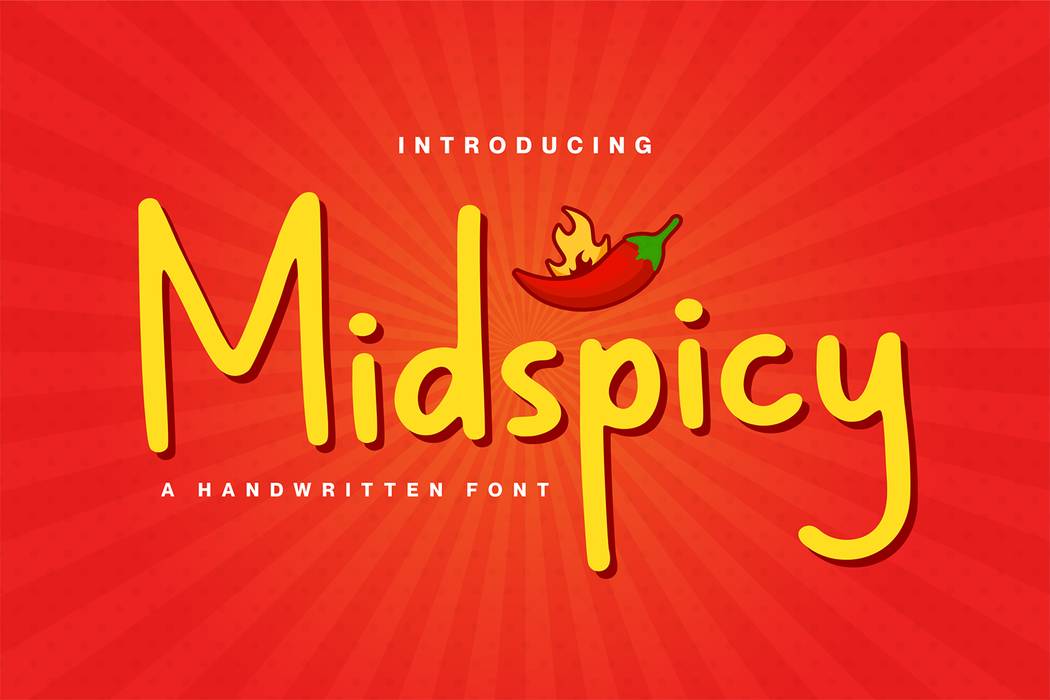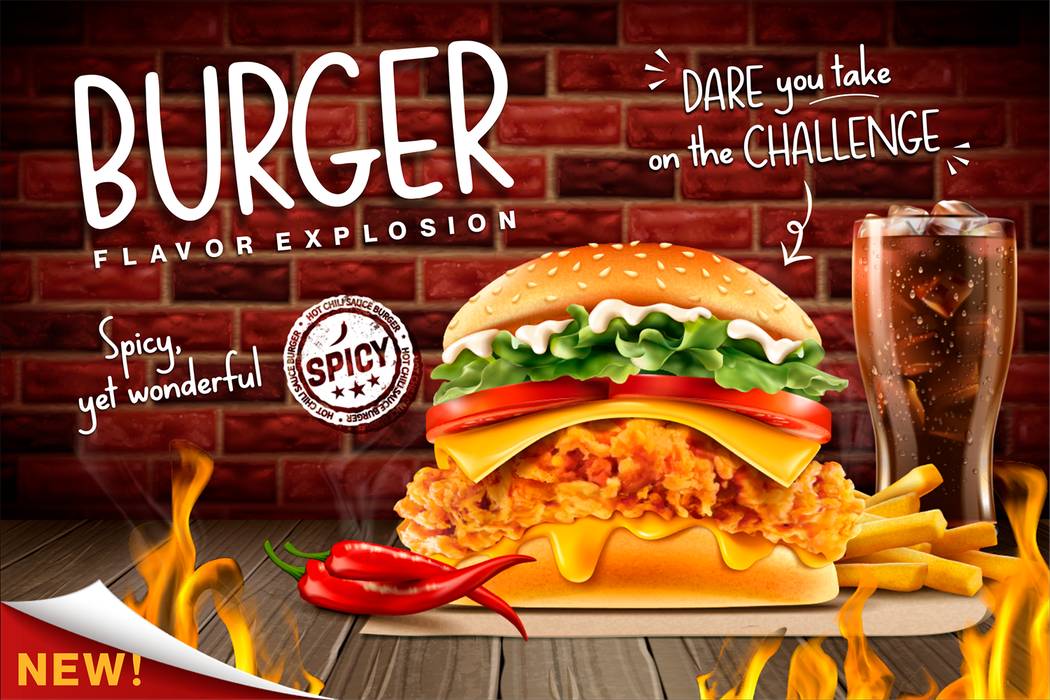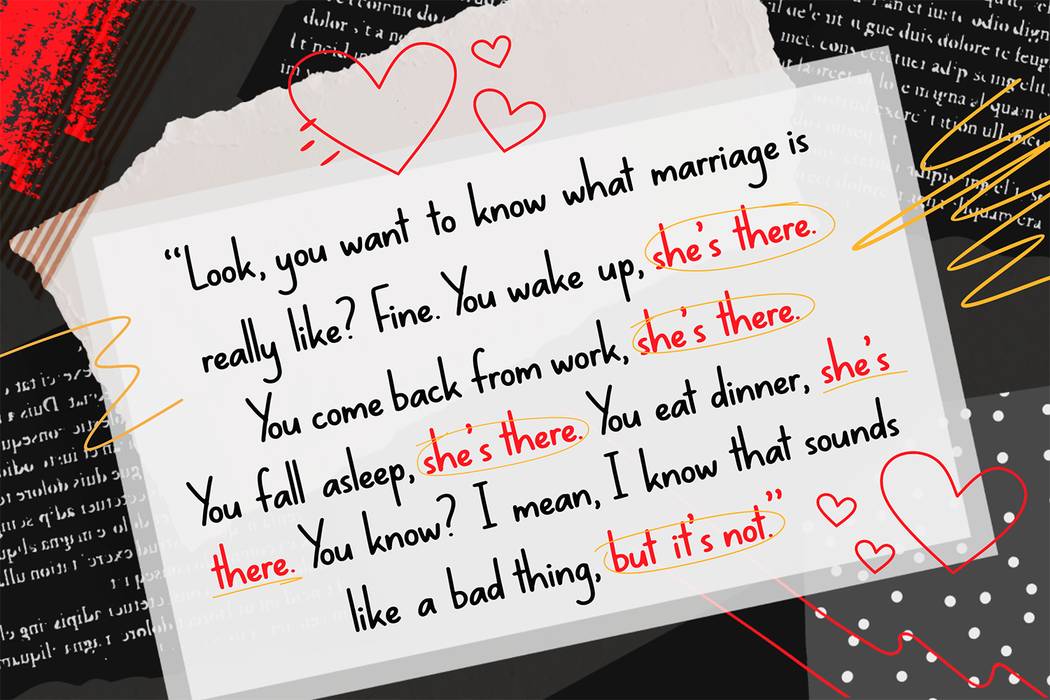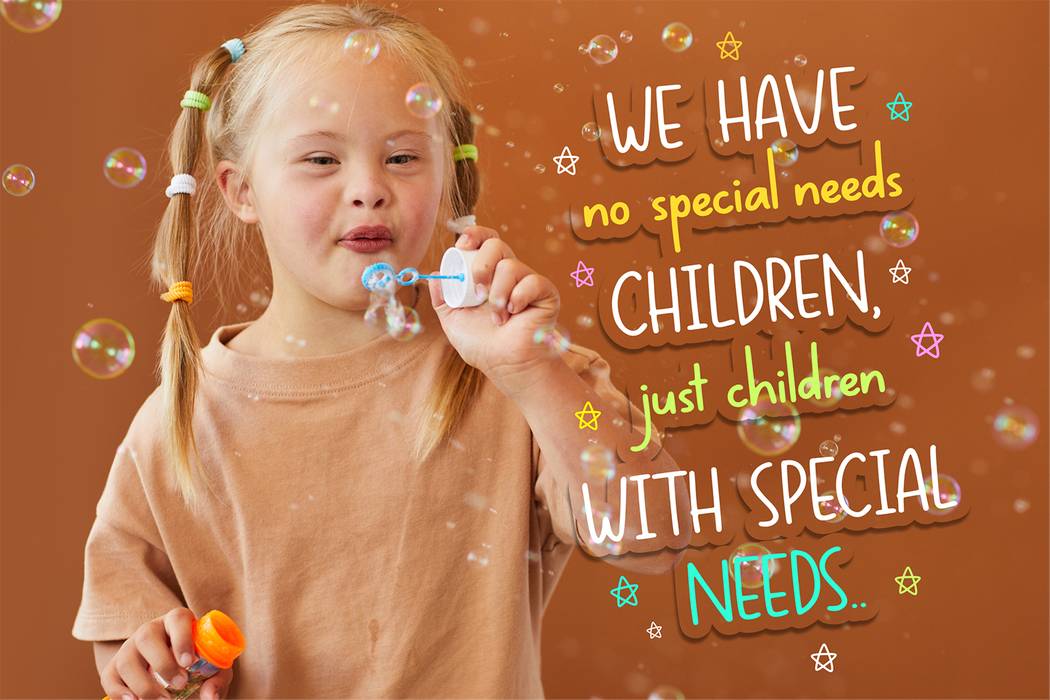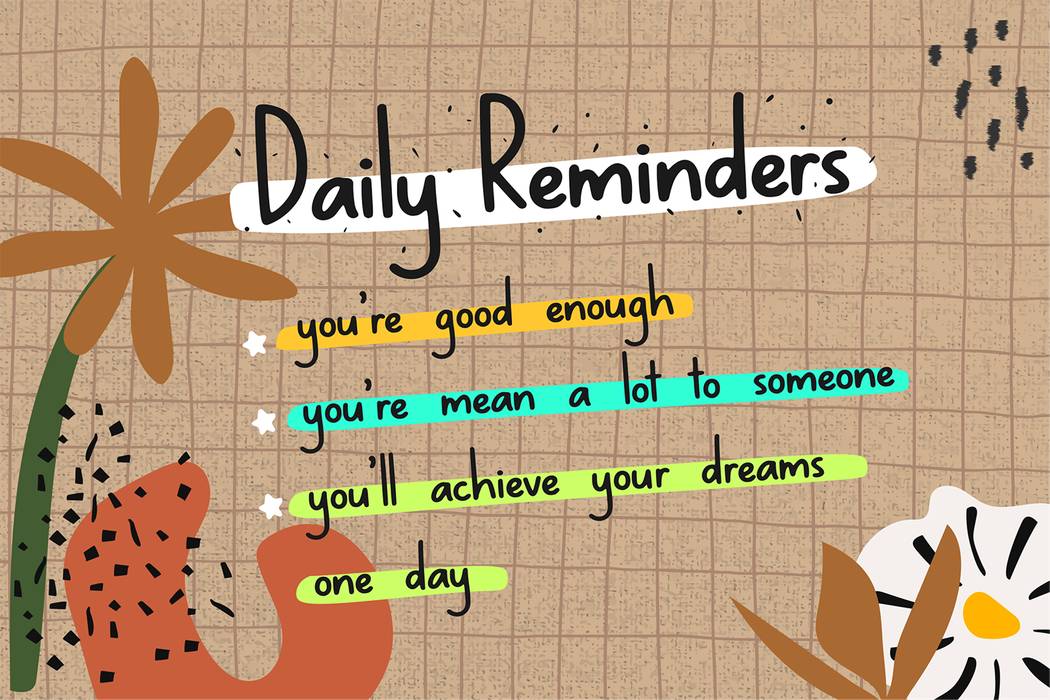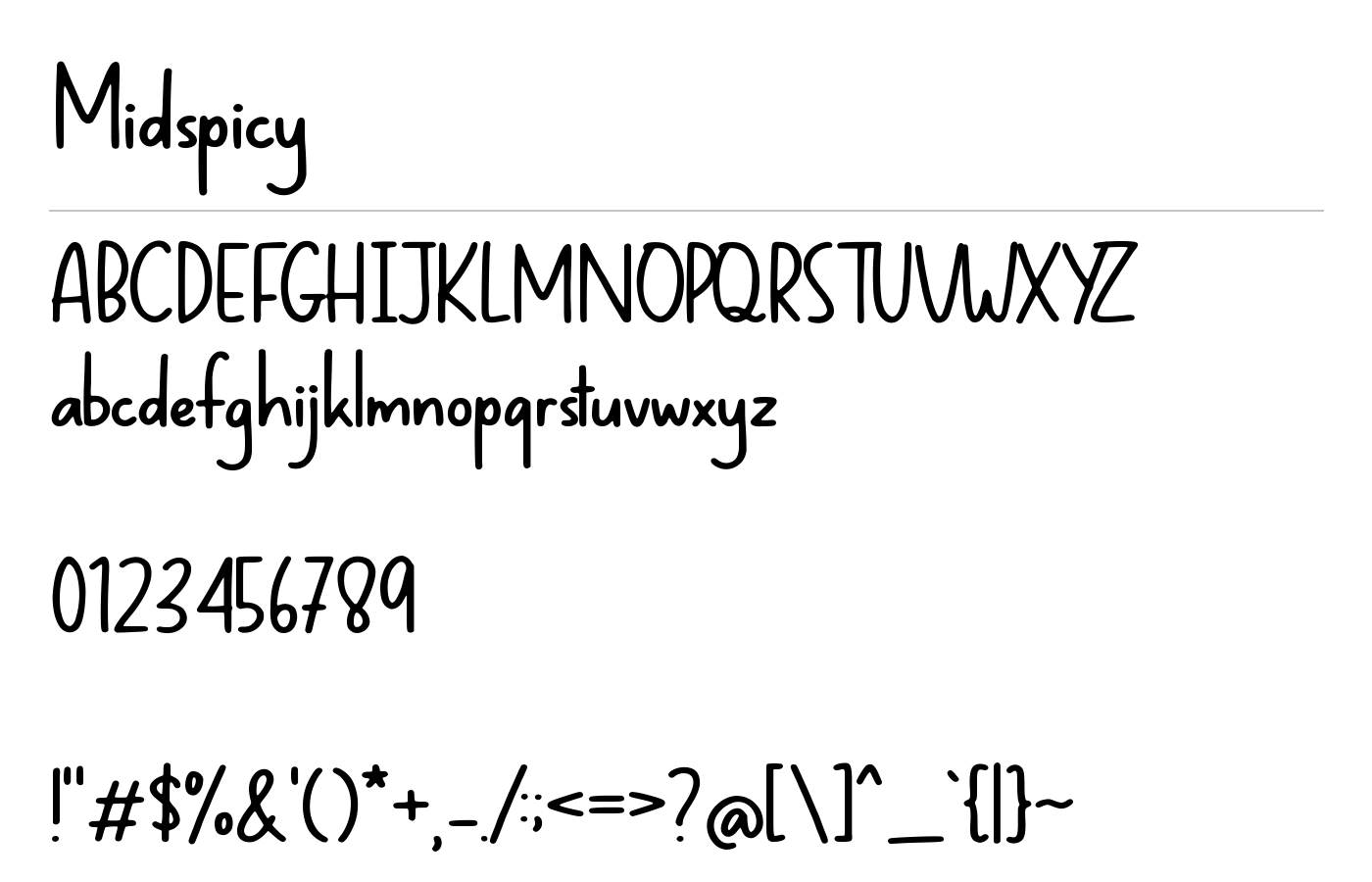
Midspicy is a playful, handwritten sans serif font with a tall, narrow structure and a friendly, informal feel. Its irregular strokes and quirky letter shapes create a casual, approachable vibe, making it perfect for creative projects, children’s materials, and lighthearted branding that seeks warmth and personality. This font works well in headlines, logos, and designs where a fun, human touch is needed.
Midspicy Font
About Midspicy Font